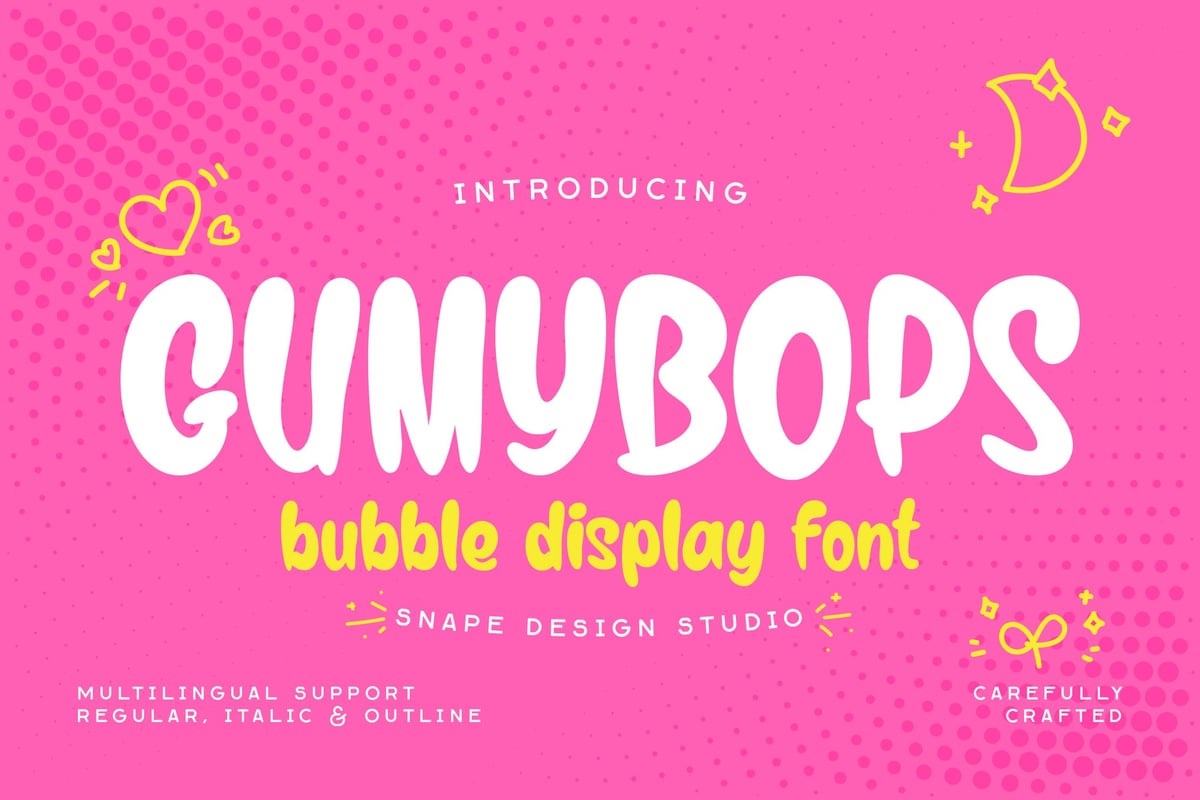
Gumybops - Bubble Display Font
Transform your designs with GUMYBOPS – the playful bubble display font that brings instant joy and friendliness to every project. This soft, chunky typeface delivers bold visual impact while maintaining an adorable and approachable personality. The rounded shapes and bouncy letterforms make it an ideal choice for creating memorable designs that stand out. Perfect applications include: Kids designs and children's projects Eye-catching posters and headlines Playful branding and logo design Product...